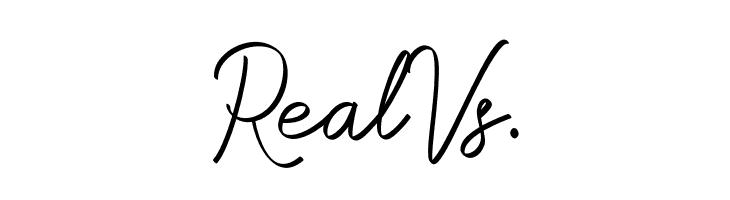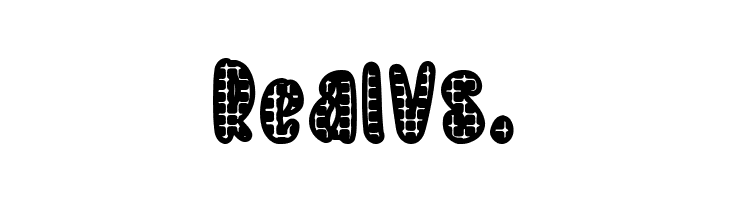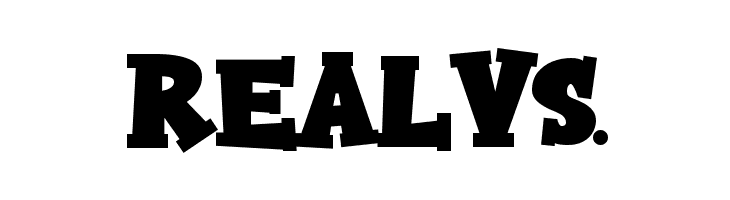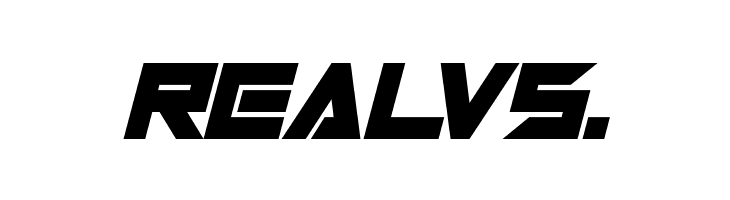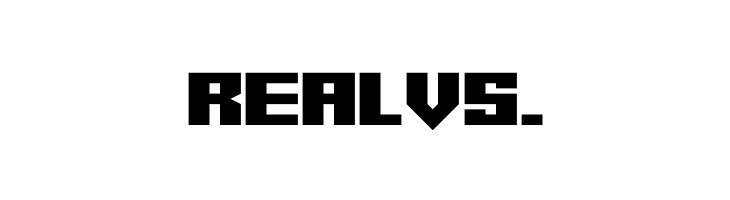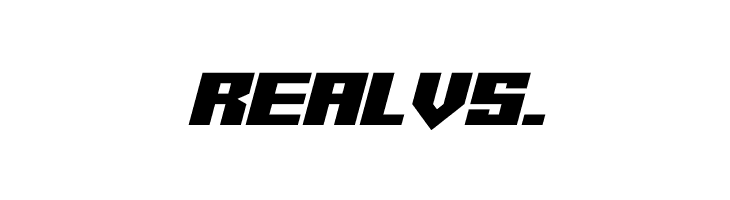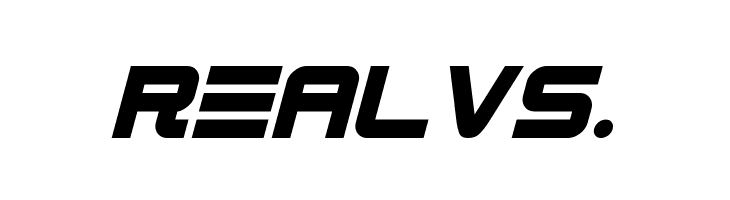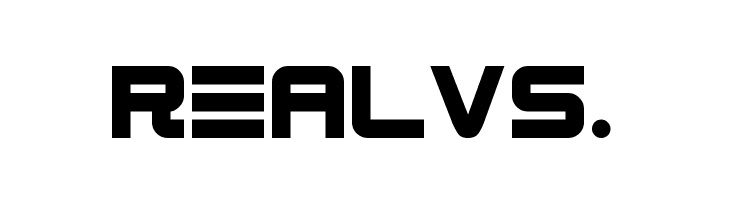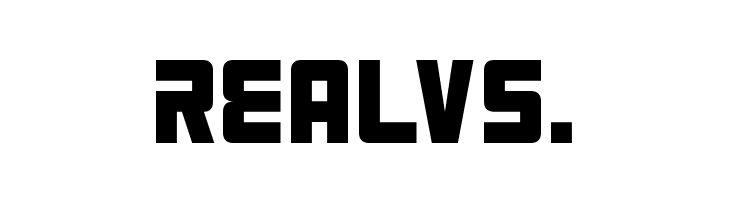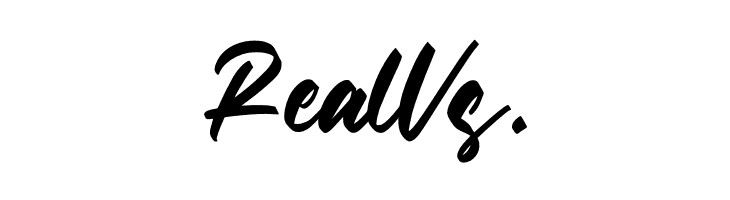
Elegant handwritten script font.
An elegant, flowing cursive font with thin, graceful strokes.
A bold, handwritten font with dynamic and flowing strokes.
An elegant script font with flowing, interconnected letters and classic calligraphic style.
A bold, brush-style font with a lively and artistic flair.
A lively handwritten font with smooth, slanted strokes and a casual elegance.
A bold, hand-drawn style font with energetic and playful characteristics.
A modern, elegant handwritten font with fluid strokes and a dynamic slant.
A bold, geometric font with a three-dimensional, industrial style.
A bold, modern font with sharp, angular cuts and high contrast.
A fluid, elegant script font with a handwritten appearance.
A fluid, cursive script font with a natural handwritten style.
A bold, expressive font with brush-like strokes and a hand-drawn appearance.
A clean, monoline font with consistent stroke widths and a classic, geometric influence.
A bold, flowing script font with elegant, connected characters.
A bold, geometric font with a futuristic, digital aesthetic.
A bold, angular font with a futuristic and dynamic design.
A playful and elegant script font with flowing, cursive letters.
A bold, geometric sans-serif font with a modern and professional look.
A bold, high-contrast font with sharp angles and curved elements for dramatic visual impact.
A dynamic and elegant script font with bold, flowing letterforms.
A sophisticated script font with elegant, flowing cursive strokes.
A bold, distressed font with a rugged, industrial texture.
An elegant, flowing script font with ornate uppercase and smooth lowercase letters.
A bold, geometric font with angular and modern design elements.
A futuristic, hollow, geometric font with sharp, angular lines.
A modern, hollow, and geometric font with inverse strokes and angular design.
A modern, angular font with a futuristic and dynamic design.
A dynamic and fluid script font with elegant, flowing curves.
A playful, hand-drawn font with a whimsical and creative style.
A playful, handwritten script font with dynamic, flowing strokes.
A playful, bubble-like decorative font with bold, outlined characters.
An elegant, flowing script font with a distinct italic slant.